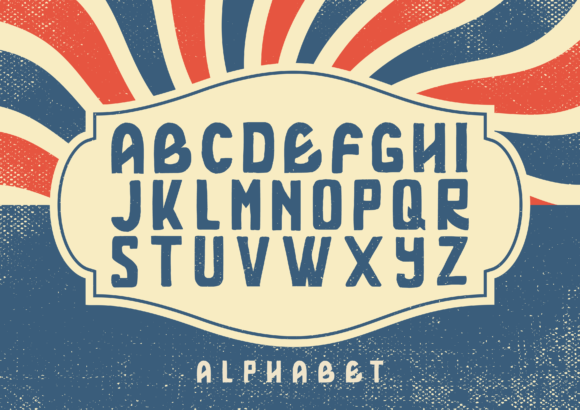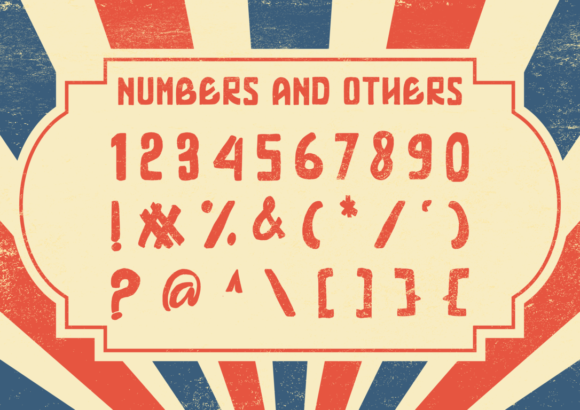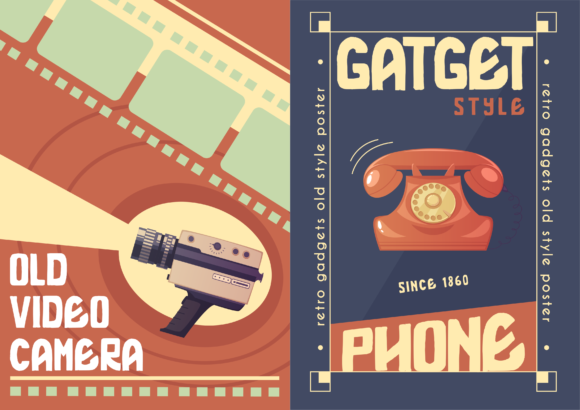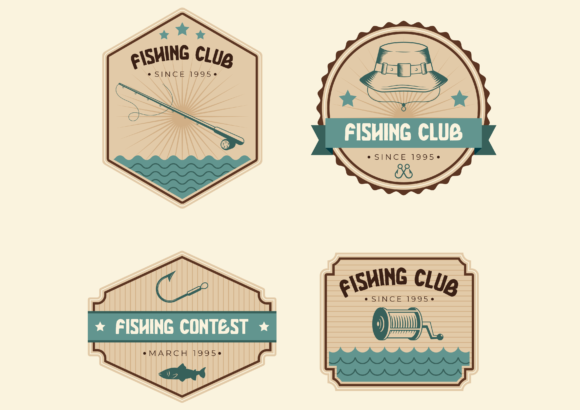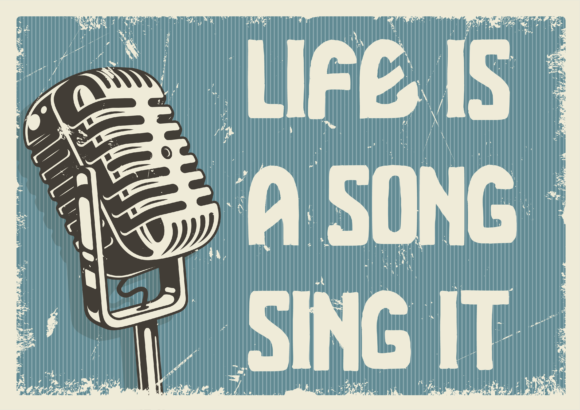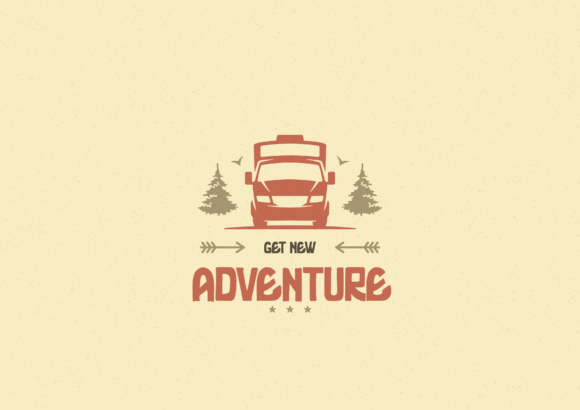
Introduction to Old River Font
As you sit at your desk, surrounded by scraps of paper, glue, and glitter, you know that moment of pure creative bliss is just around the corner. The ideas start flowing, and your imagination runs wild. You’re on a mission to create something truly special – a handmade card, a custom label, or a unique branding element. The right font can make all the difference, and that’s where the Old River Font comes in.
Designed to add a touch of rugged charm to your creative project, the Old River Font is a bold, cool, and rough-textured display font that’s perfect for elevating your designs. With its high-quality design and transparent background, this free download is a valuable resource for designers looking to add a unique touch to their work.
Key Features of Old River Font
- Unique characteristics include intricate details and a vintage aesthetic
Honest Review: Old River Font
As a designer, I’ve had the pleasure of working with a wide range of fonts, but the Old River Font has definitely caught my attention. This font is a great addition to any design resource, offering a high quality, vintage feel that’s perfect for creative projects.
One of the standout features of the Old River Font is its unique, distressed aesthetic. The transparent background allows for a seamless integration with any design, making it a versatile choice for both digital and print projects. ✨
- Unique, distressed aesthetic
- High quality, crisp lines
- Perfect for vintage, creative projects
However, there are a few limitations to consider. The font may not be suitable for projects that require a clean, modern look, and some users may find the distressed aesthetic to be too busy or overwhelming. ⚠️
Overall, I’m impressed with the Old River Font and would definitely recommend it to designers looking for a unique, high-quality font for their creative projects. With a free download available, it’s definitely worth checking out.
Tips for Getting the Most Out of Old River Font
To get the most out of the Old River Font, use it with a transparent background to create a beautiful and elegant design. You can also pair the font with other design elements, such as graphics and images, to create a unique and creative project.
The Old River Font is ideal for a variety of design projects, including wedding invitations, business cards, and marketing materials. It is also a great font for creating a beautiful and elegant website or blog.